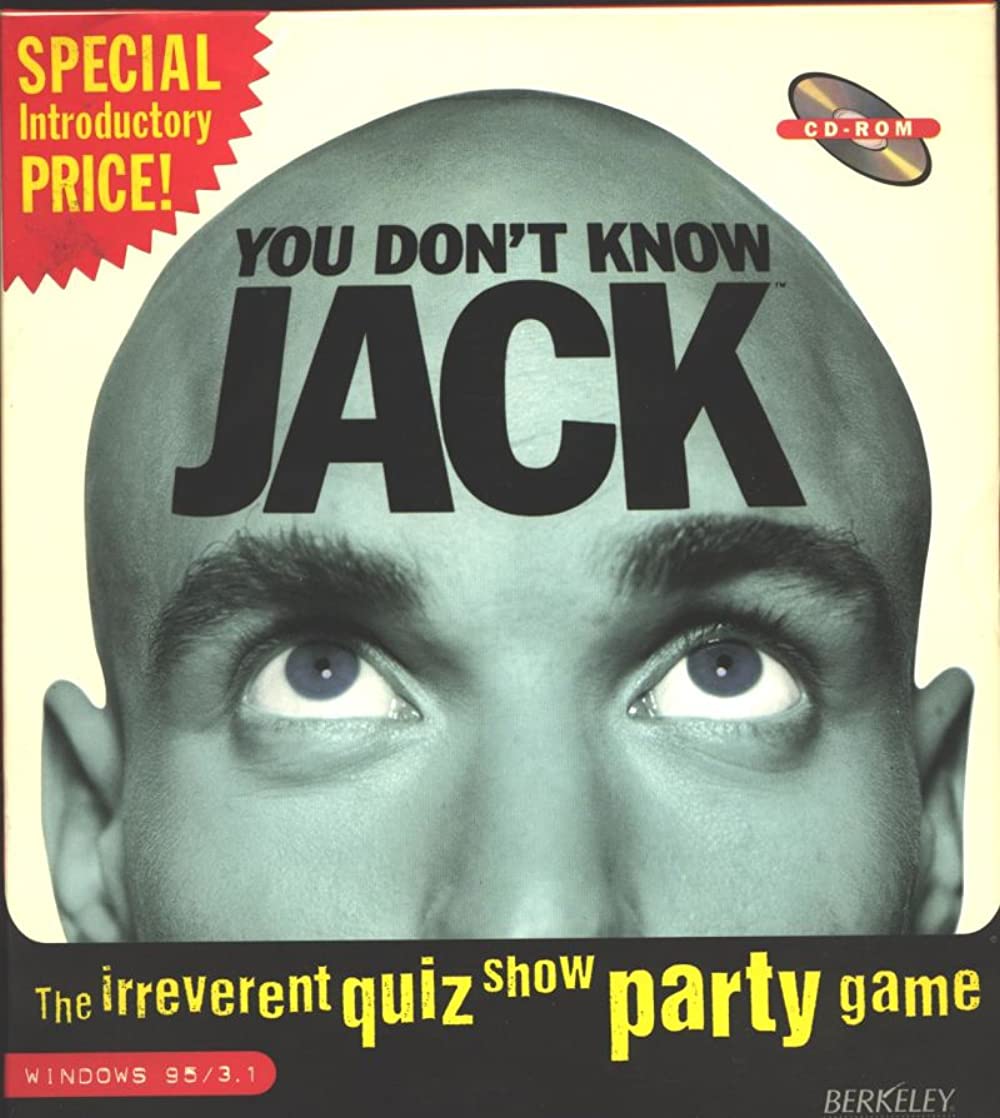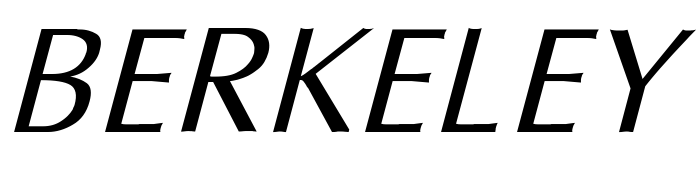
You Don't Know Jack (video game) Font
Fonts in UseYou Don’t Know Jack is a trivia game that was popular in the 1990s and early 2000s. It challenges players with humorous and often irreverent questions across a variety of categories.
The game title, promo text, and tagline on the art utilized Franklin Gothic Condensed font, while the Berkeley Systems logo on the lower right employed Optima Italic font designed by Hermann Zapf.